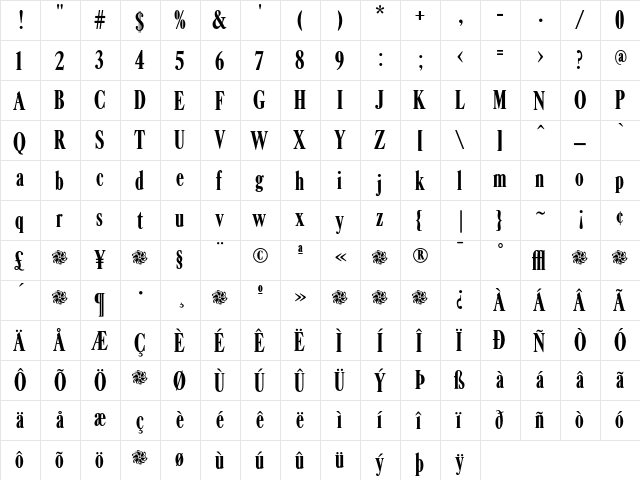
CaslonFB BoldExtraCondensed
Design Context for CaslonFB Typeface
CaslonFB is a composed and adaptable typeface that performs quietly and consistently across a wide range of design contexts. Its bold stroke weight gives it real presence on the page. Its narrow stance lets it pack a punch even in space-constrained designs.